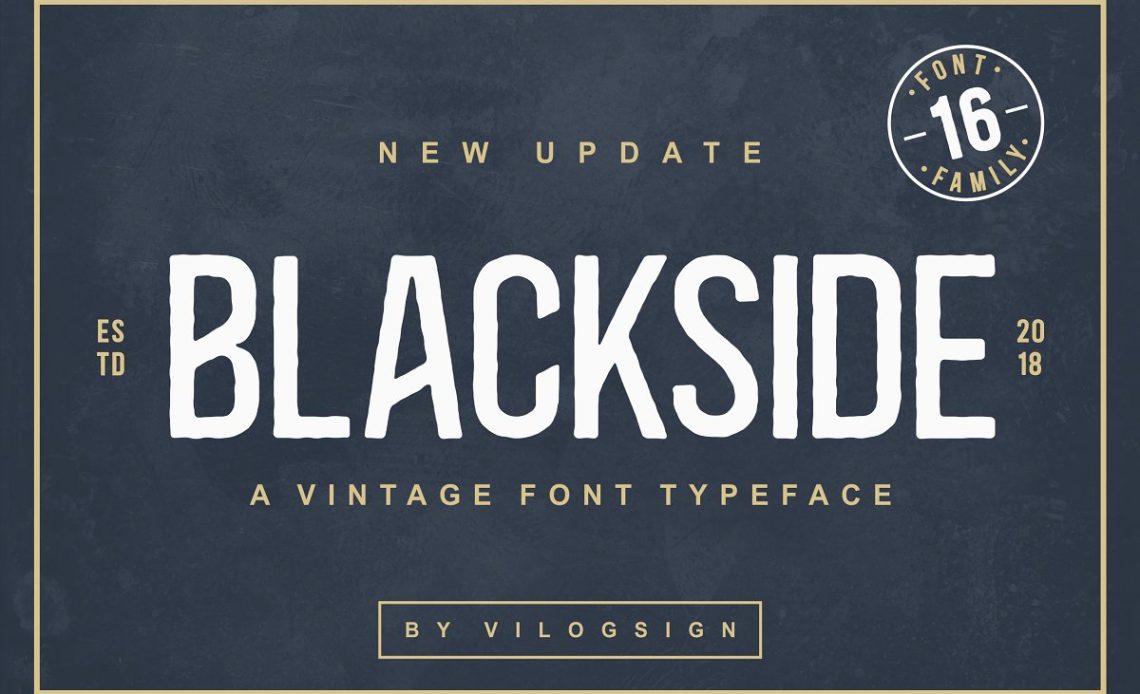
Are you looking to add a touch of vintage charm to your designs? Look no further than Blackside, a remarkable vintage typeface font created by the talented Nur Kholis. With its captivating texture and grunge effect, this font is the perfect choice for those who want to make a bold statement.
Blackside offers a unique combination of elegance and nostalgia, making it suitable for a wide range of applications. Whether you're designing children's invitations, branding materials, posters, magazines, greeting cards, fashion pieces, quotes, logos, or packaging, this font will bring your creations to life.
One of the standout features of Blackside is its versatility. With 16 characters to choose from, you'll have plenty of options to create eye-catching and memorable designs. The multilingual support ensures that you can cater to a global audience, enhancing the reach and impact of your work.
Imagine the possibilities with Blackside. Whether you want to evoke a sense of nostalgia, add a vintage flair, or simply make a statement, this font has got you covered. Its unique texture and grunge effect set it apart from other fonts, making your designs truly stand out.